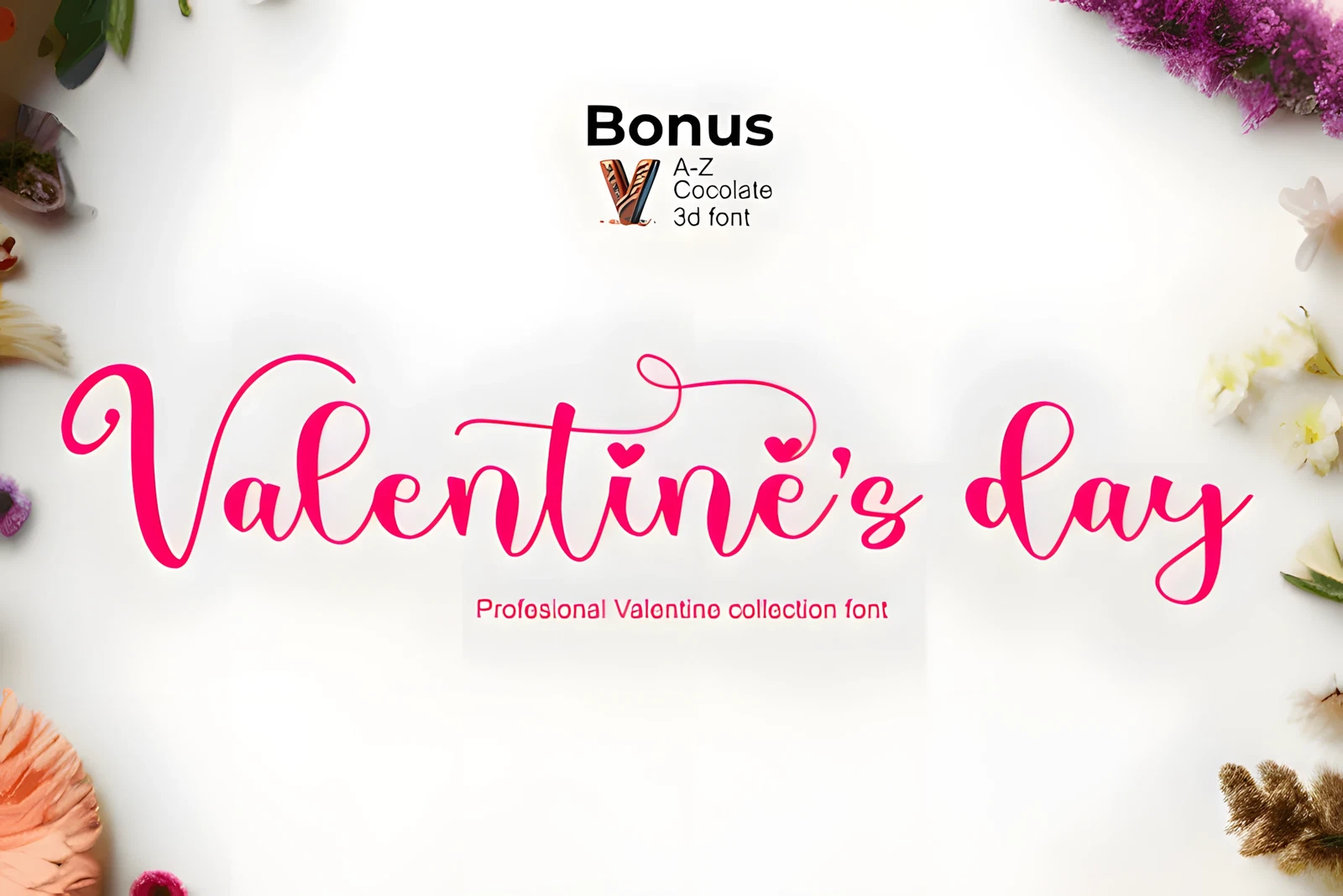
This Valentine’s Day Font is a chic handwritten typeface that brings charm and a romantic feel to your designs. Its modern script gives off a soft but sure vibe, great for crafting lovely, elegant messages of love.
It’s a great Wedding Invitation Font, perfect for invites, save-the-dates, RSVP cards, and any romantic paper goods that need a refined handwritten touch. It also shines as Love Branding Typography, giving logos, ads, and product packaging a heartfelt, premium style that feels personal and sticks with people.
For photographers and other creative people, Valentine’s Day Font is a solid Watermark Script Font. It provides a delicate, readable handwritten style for watermarks, photo overlays, and social media branding. Whether you’re making wall art, labels, product designs, or promotional images, this font adds a graceful handwritten touch that makes every piece better.